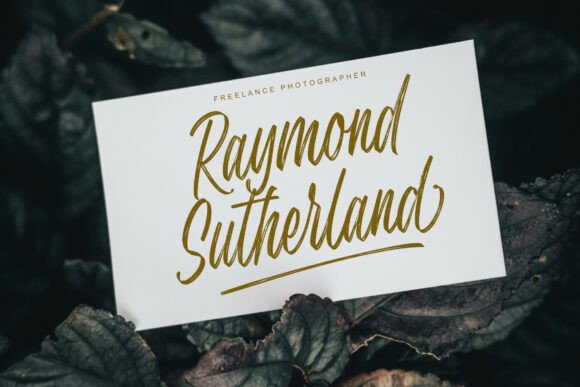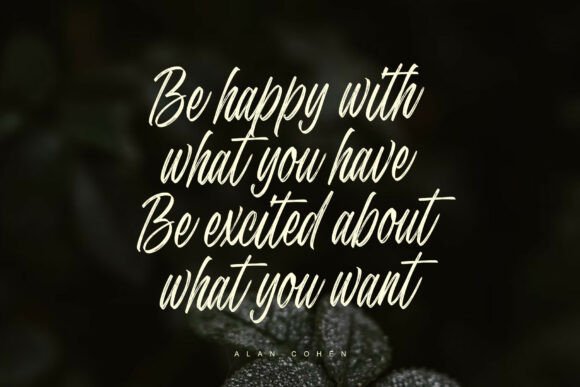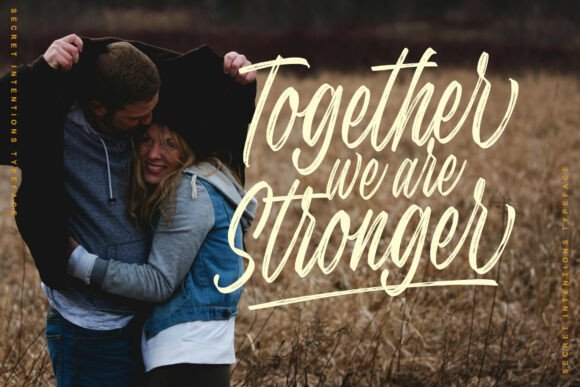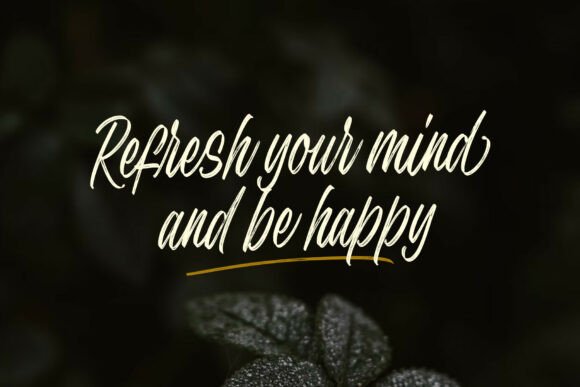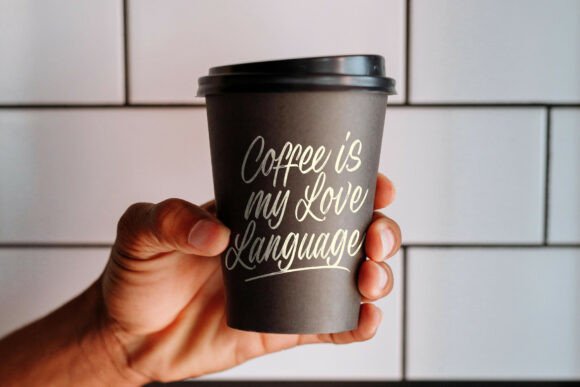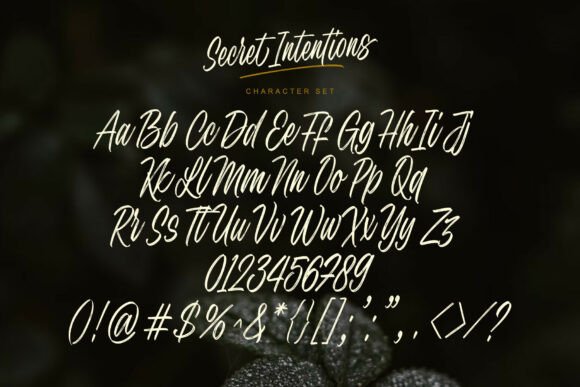
Introduction to Secret Intentions Font
Have you ever been brainstorming for a creative project, and suddenly, the perfect font pops into your mind, capturing the essence of your vision? That’s what happens when you stumble upon the Secret Intentions Font. Its unique, handwritten style brings an instant touch of authenticity and emotion to any design. Whether you’re working on a branding campaign, social media graphics, or even a wedding invitation, this high-quality font is the perfect design resource to elevate your creative project.
As a designer, you’re always on the lookout for that special something that sets your work apart. The Secret Intentions Font is a game-changer, offering a level of personality and warmth that’s hard to find in more generic fonts. With its organic texture and sweeping strokes, this font is perfect for designers who want to add a touch of spontaneity to their designs. And the best part? It’s available for free download, making it an accessible addition to any design arsenal.
Key Features of Secret Intentions Font
- High-quality, unique font design perfect for creative projects, including posters, flyers, and brochures.
- Includes a range of characters, including uppercase and lowercase letters, numbers, and punctuation marks, making it suitable for a variety of design applications.
- Designed with a bold, eye-catching aesthetic, ideal for use in headings, titles, and other prominent design elements.
Honest Review: Secret Intentions Font
As a designer, I’m always on the lookout for high-quality fonts to elevate my creative projects. Recently, I came across the Secret Intentions Font, and I must say it’s been a game-changer. ✨
- The font’s unique, modern design makes it perfect for a wide range of creative projects, from digital art to branding materials.
While the Secret Intentions Font is a valuable addition to any designer’s toolkit, there are a few limitations to consider: ⚠️
- The font’s limited character set may not be suitable for extensive text-based projects.
- The design, although modern, may not appeal to those with a more traditional or classic design aesthetic.
Overall, I’m thoroughly impressed with the Secret Intentions Font. Its versatility, modern design, and transparent background make it an excellent choice for designers working on creative projects. Whether you’re a seasoned pro or just starting out, this font is definitely worth checking out.
Getting the Most Out of the Secret Intentions Font
To get the most out of the Secret Intentions Font, use it in combination with other design elements such as images and graphics. Experiment with different font sizes and styles to create a unique visual effect.
The Secret Intentions Font is perfect for a variety of creative projects, including logos, brochures, posters, and social media graphics. Use it to add a touch of elegance and sophistication to your designs.